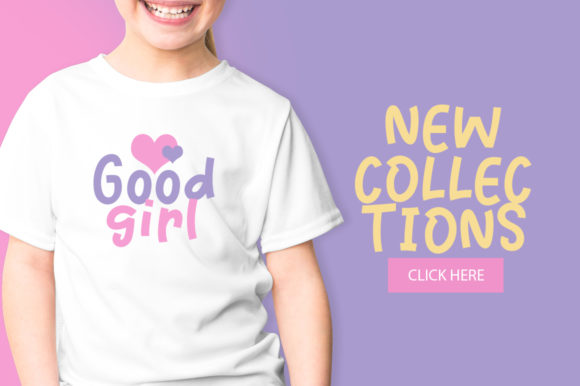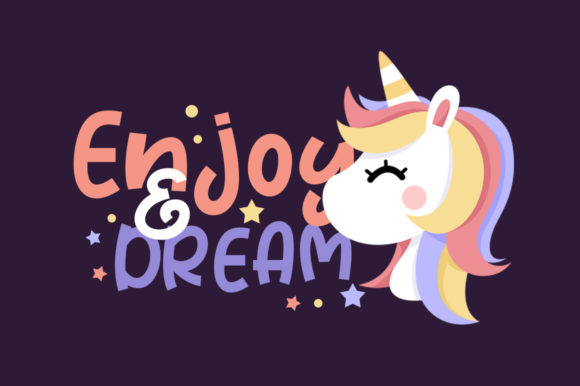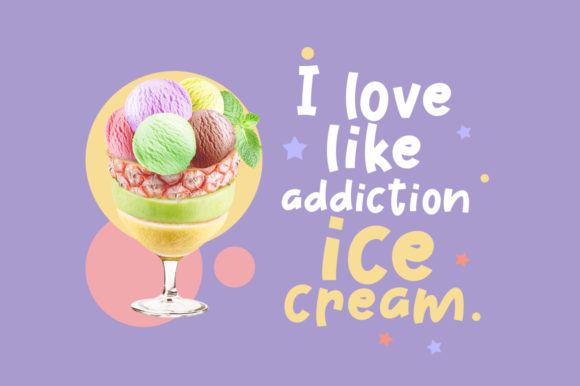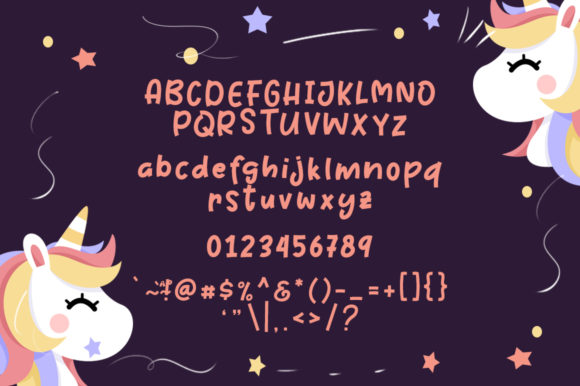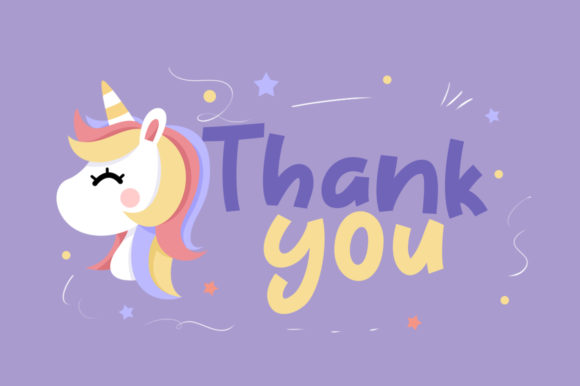
Introduction to Cute Unicorn Font
Cute Unicorn is a playful and sweet display font.
It is perfect for any creative project .
Key Features of Cute Unicorn Font
Why Choose Cute Unicorn Font?
Cute Unicorn Font offers exceptional quality and versatility, making it a valuable addition to your design toolkit. Whether you’re creating for personal projects or commercial use, Cute Unicorn Font delivers professional results.